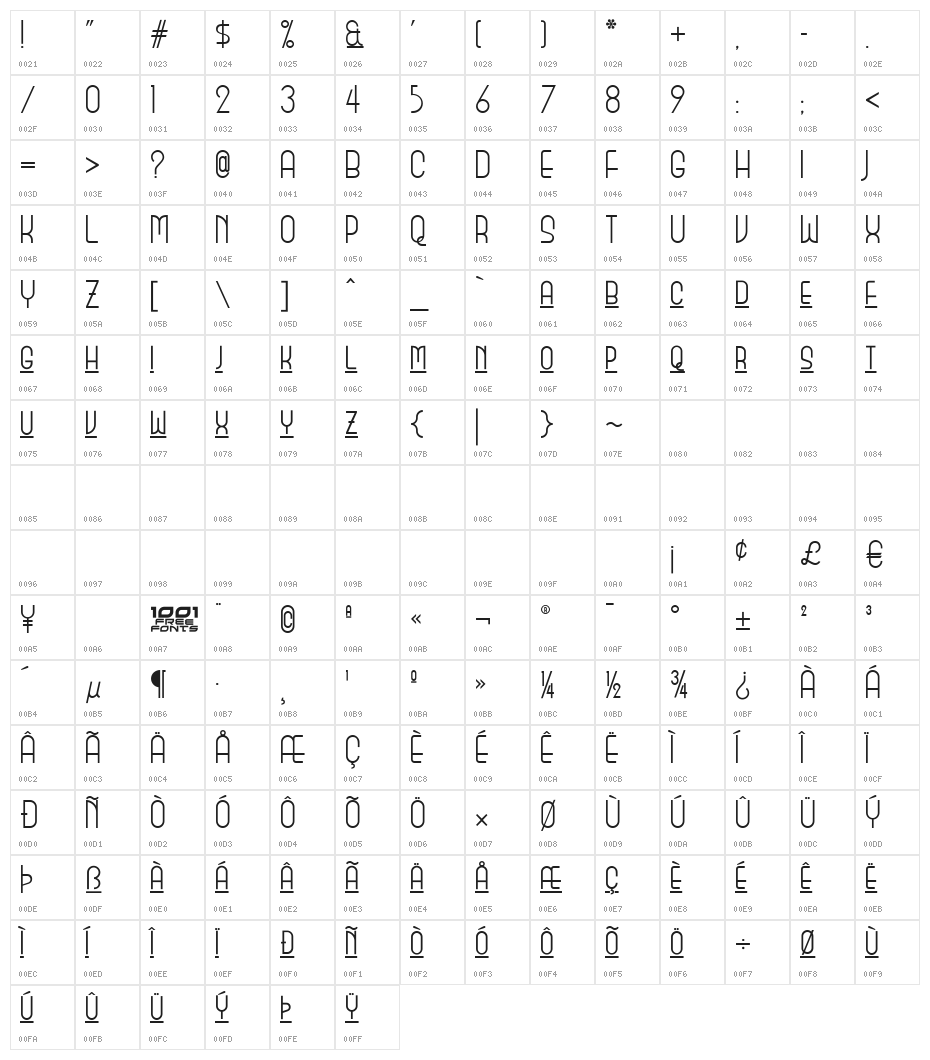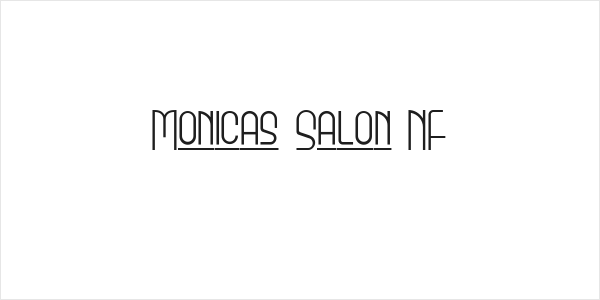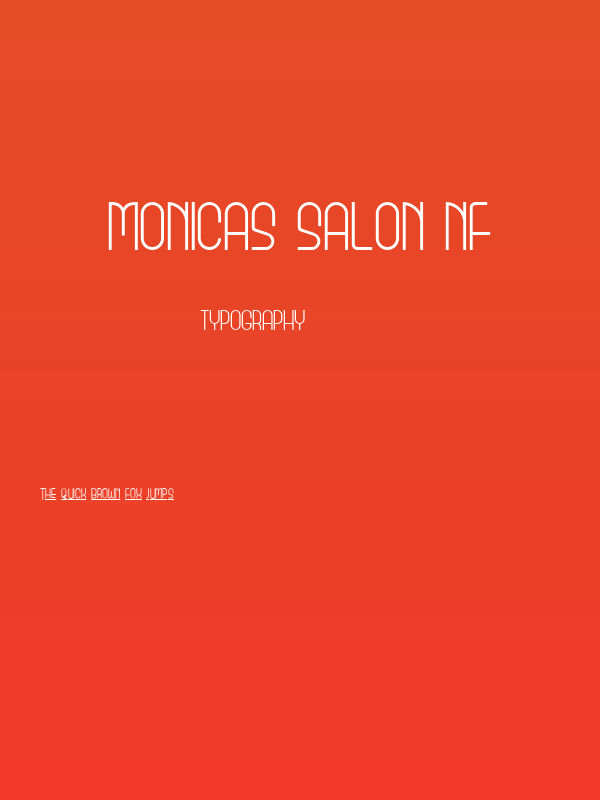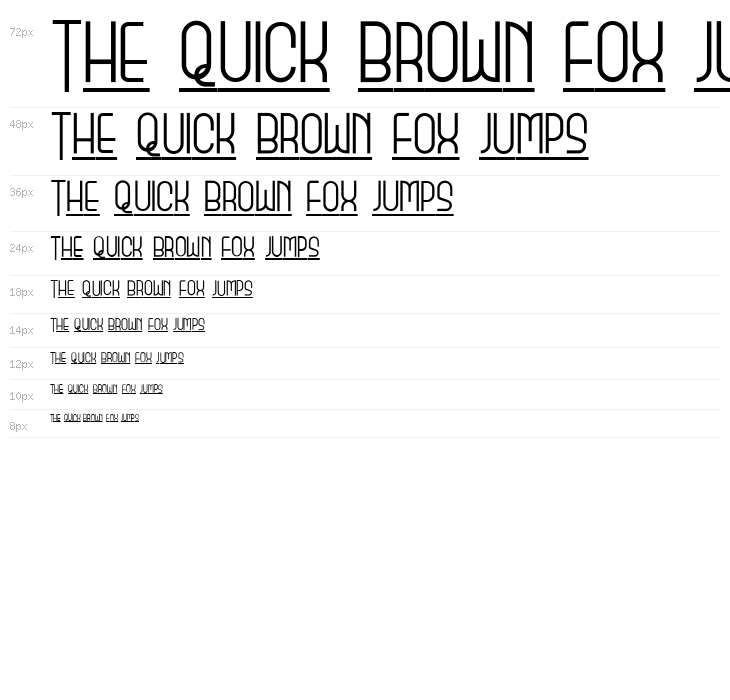
Monicas Salon NF Font
Monicas Salon NF Description
This font features a clean, geometric design with a modern aesthetic. The characters are tall and narrow, giving it a condensed appearance. The strokes are consistent in width, providing a uniform look across all letters and numbers. The uppercase and lowercase letters maintain a similar style, with subtle differences in height and form. The numerals are straightforward and align well with the overall design. Special characters are included, matching the sleek and minimalistic style. This font is ideal for projects that require a contemporary and sophisticated touch.
| Proposed Projects | Ideal for branding, advertising, and editorial design where a modern and sleek look is desired. |